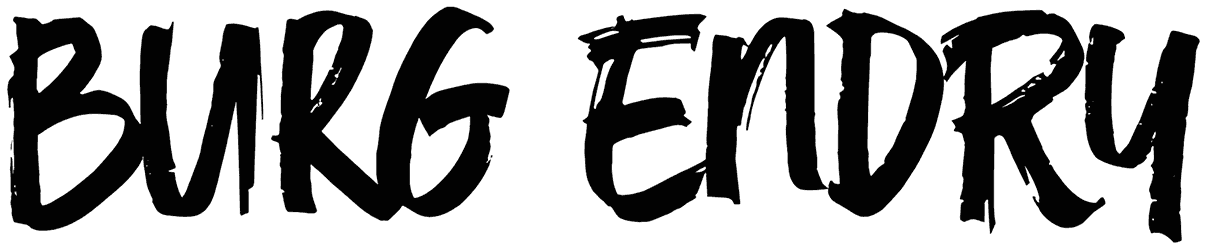
Burgendry Font
A brush font like Burgendry, with its urban vibe, is a clever pickup to reflect art and creativity. This script font doesn’t give you any offer for lowercase but you don’t need to worry, supporting two sets of caps with distinct details would offset this lack. Based on your taste, Burgendry can enrich posters, covers, etc., with a street art form and make them striking.
Burgendry is a bold, high-detail brush font. It comes with regular and slanted version, which aim to give a different feel.
Equipped with an open-type feature and more than 300 glyphs, which are very useful for today’s design needs. This font is perfect for designing t-shirts, stickers, headlines, sports, quotes, logotypes, brandings, and posters.